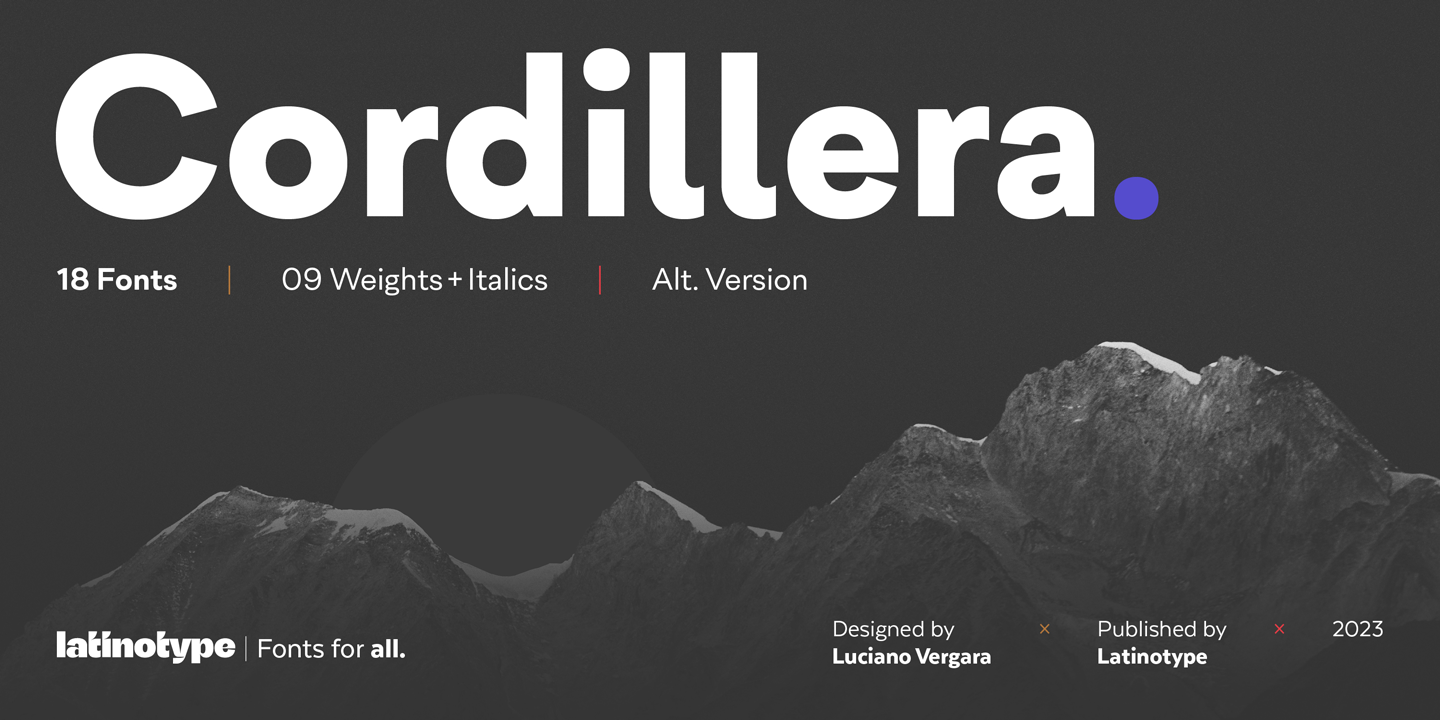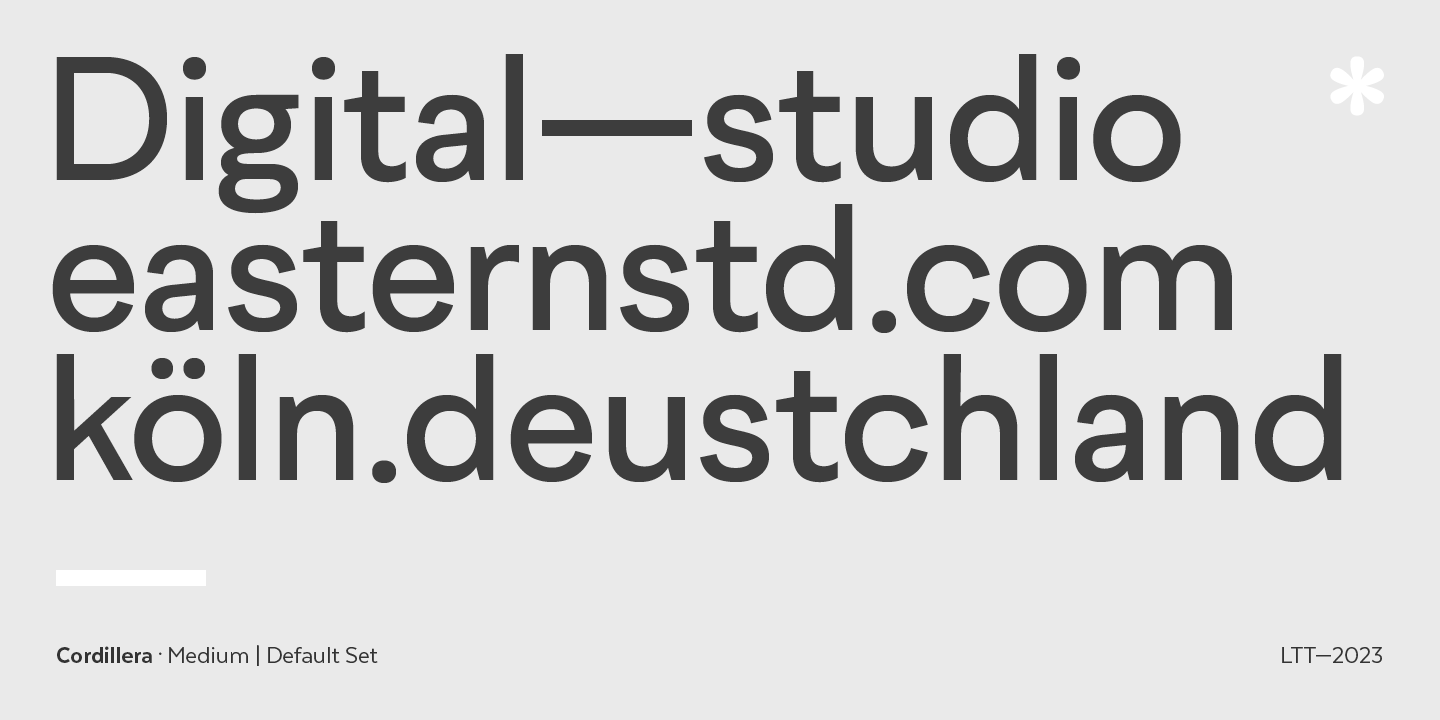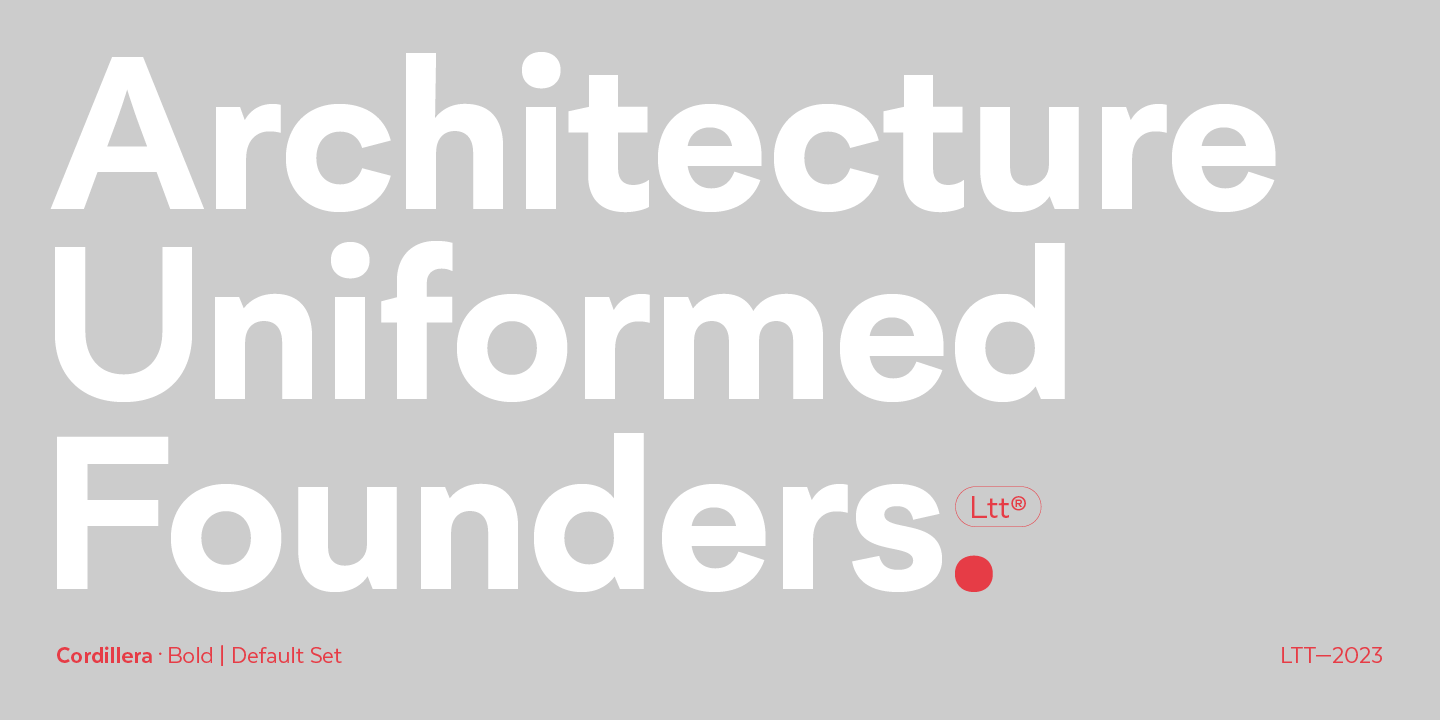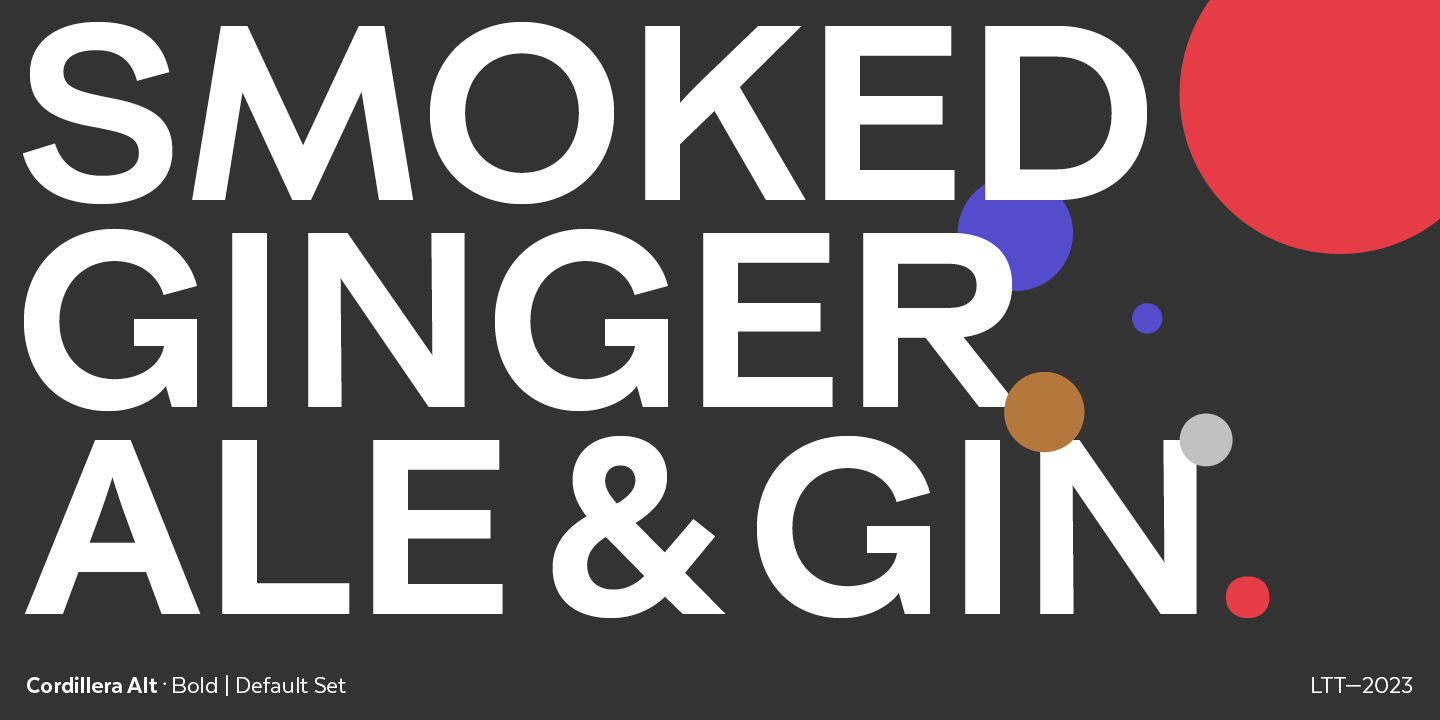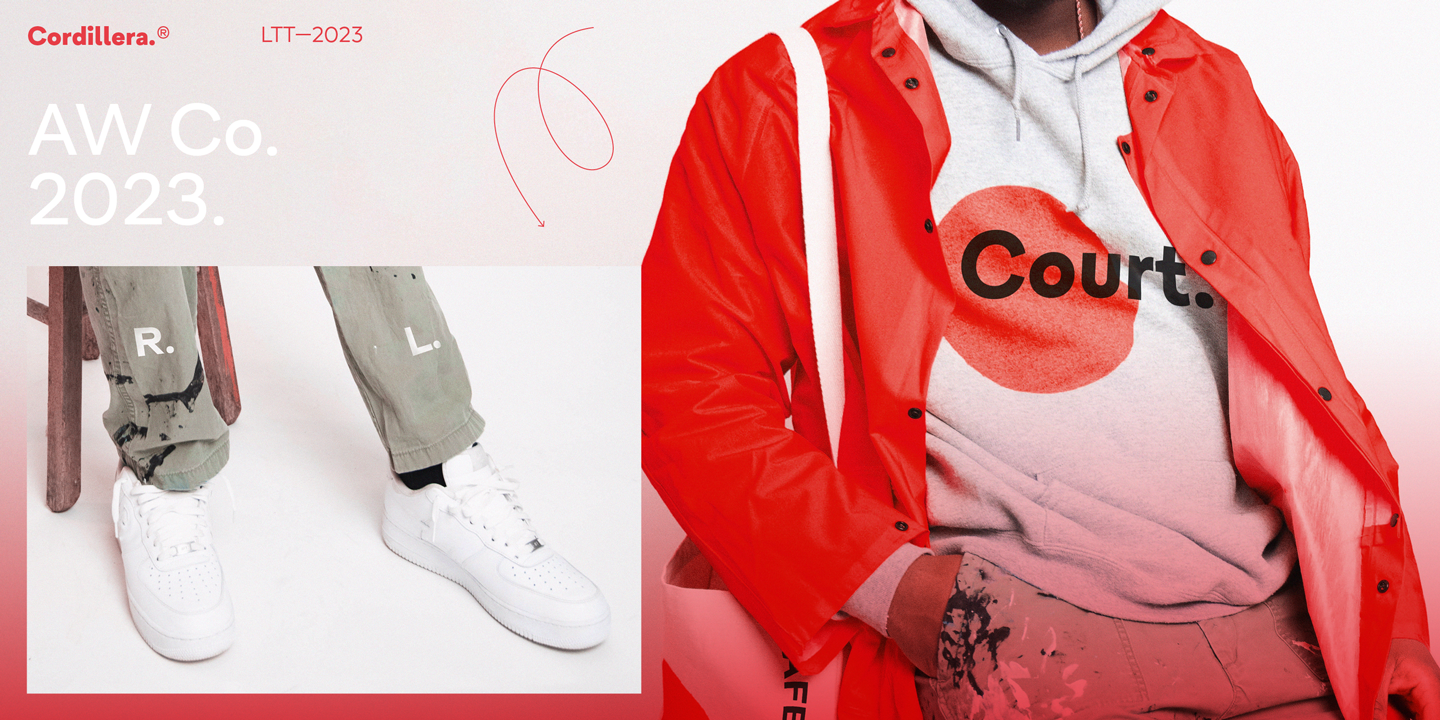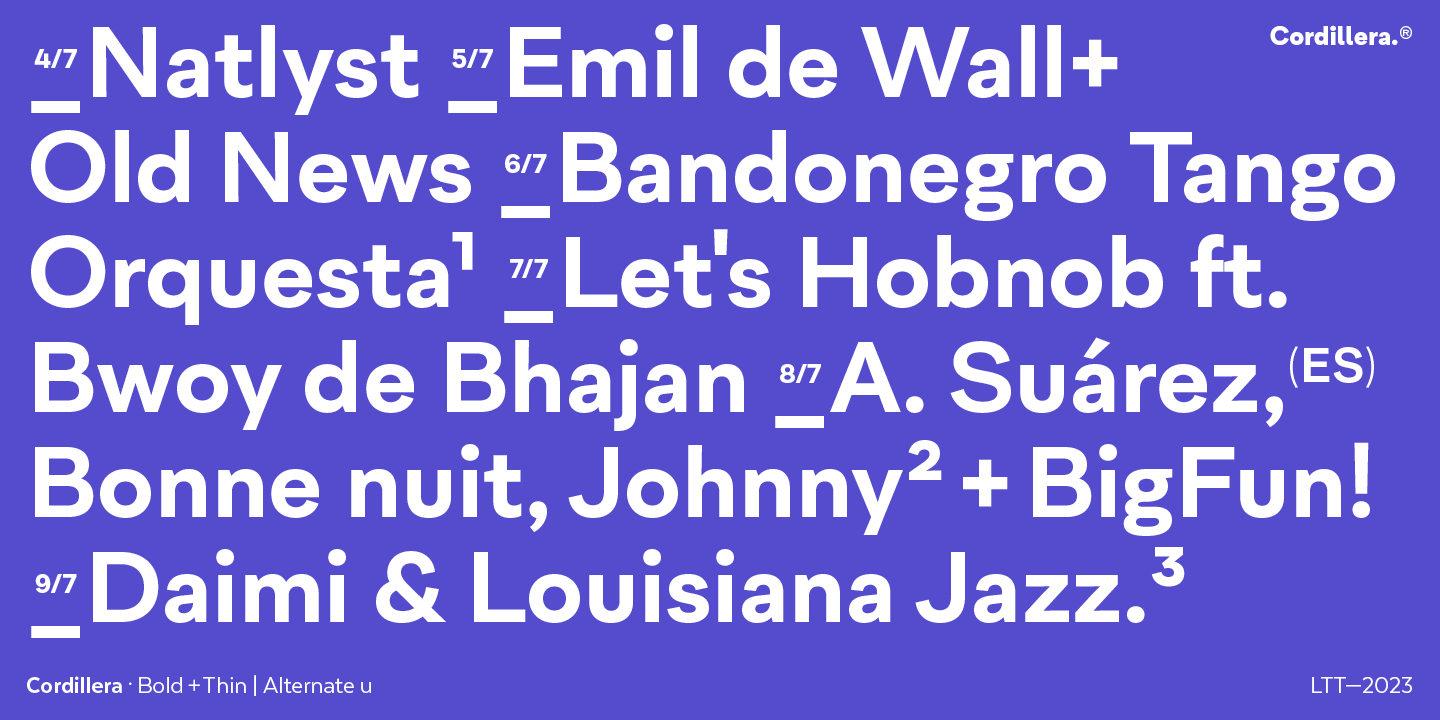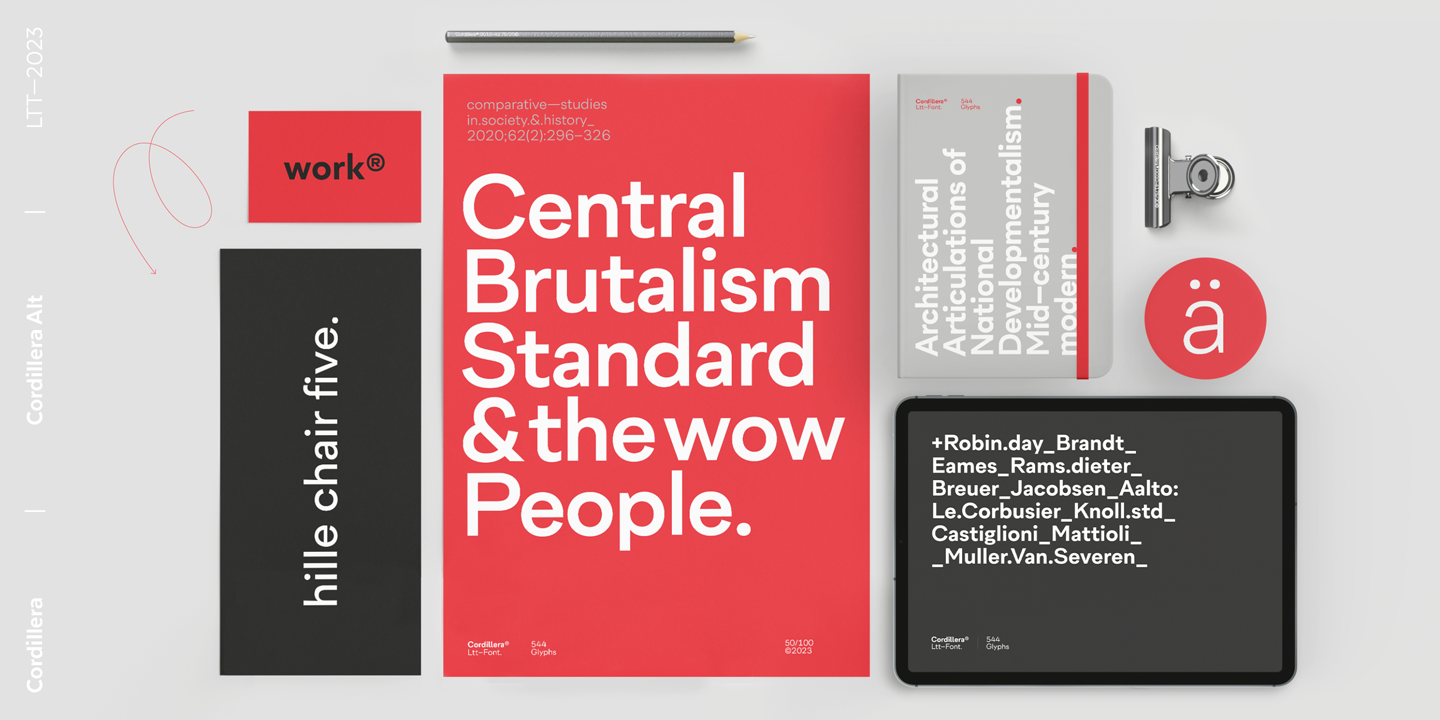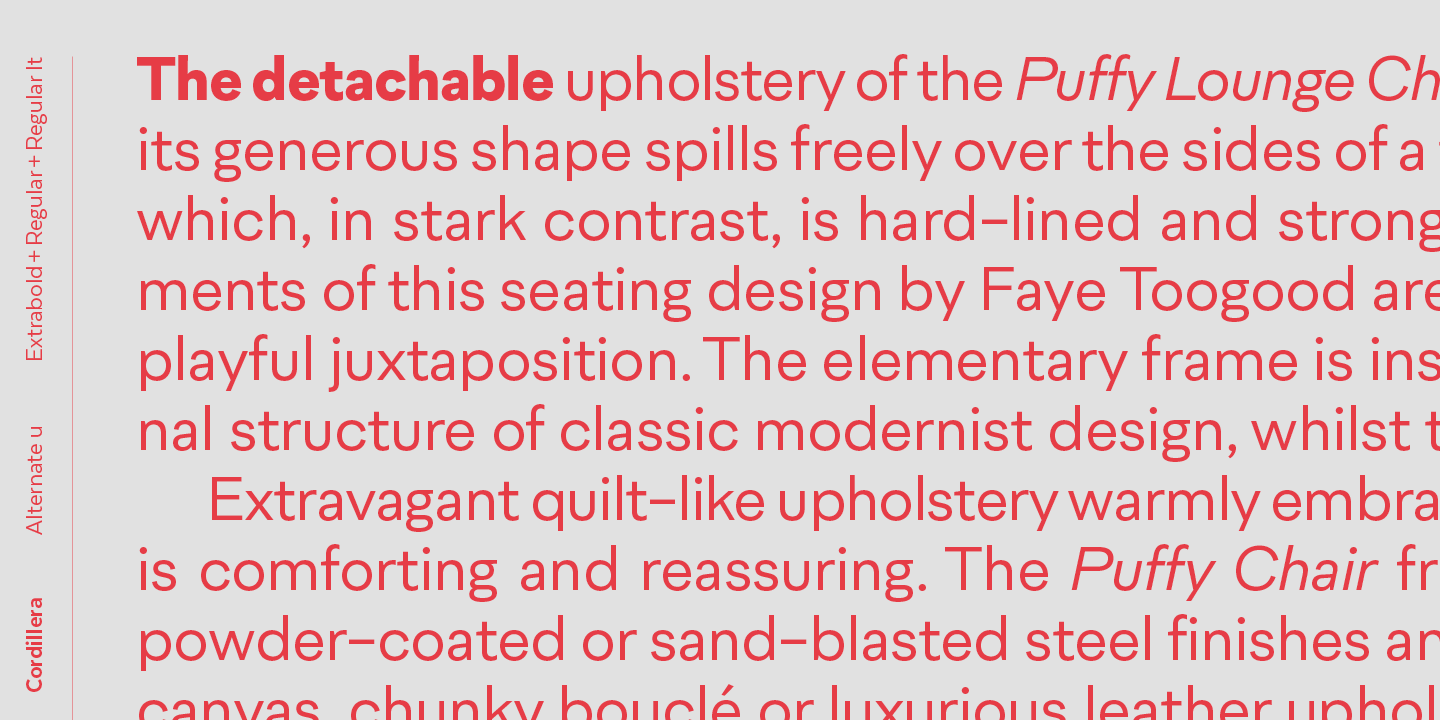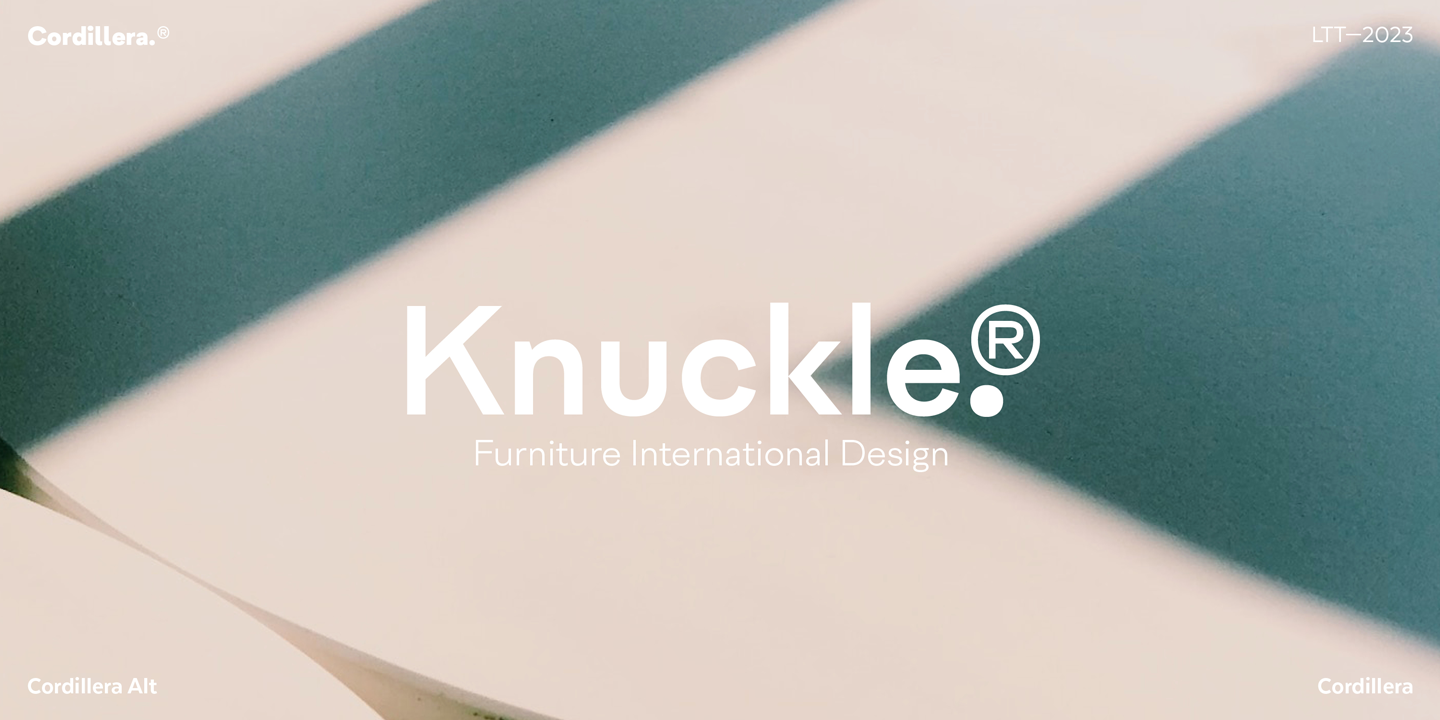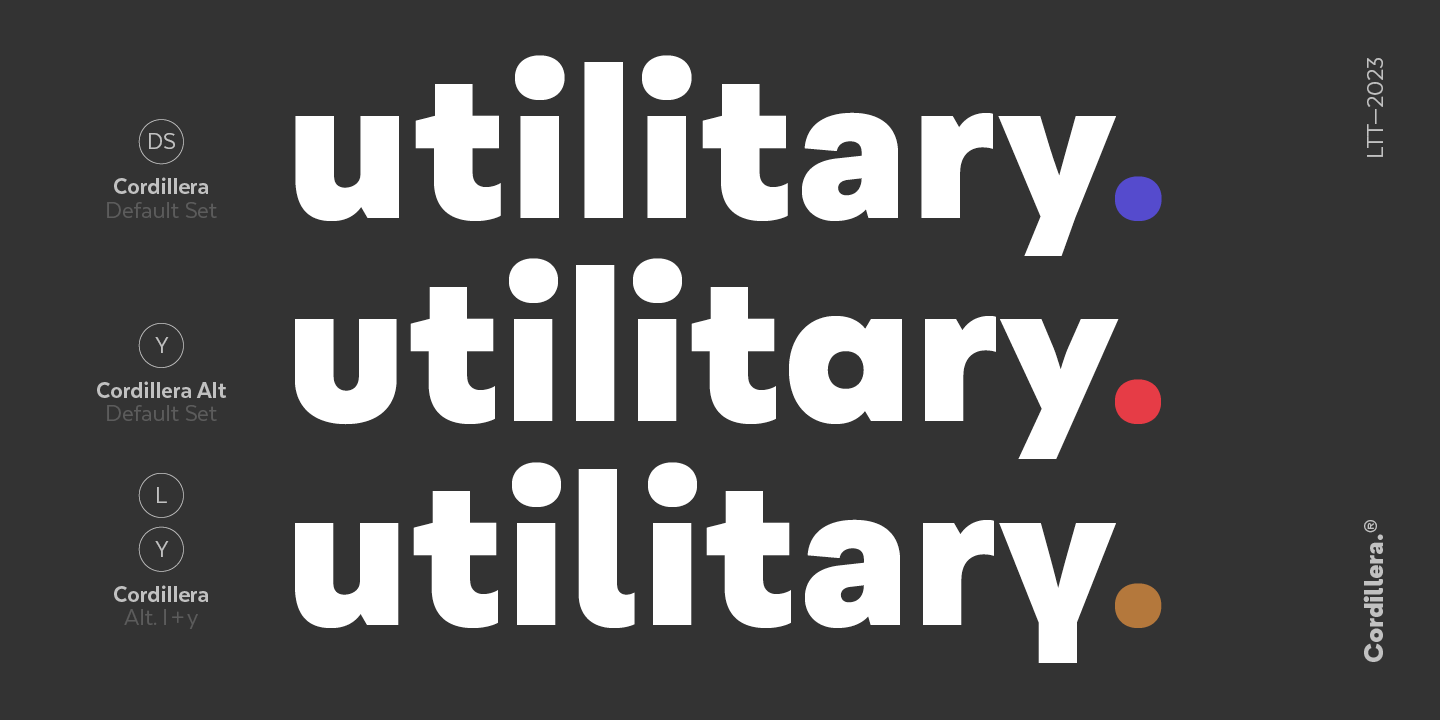
Cordillera Complete Family (36 fonts)
Its alternative characters will allow you to go from expressive titles to neutral texts easily while maintaining the harmony of the system.